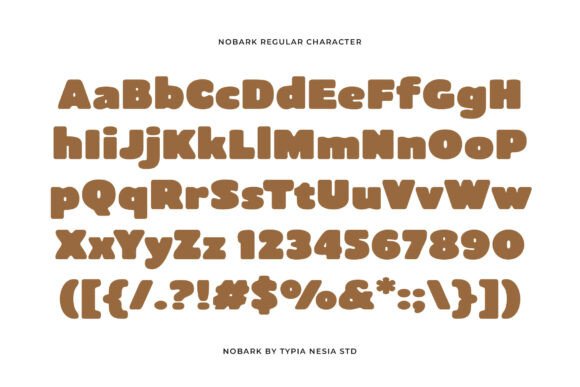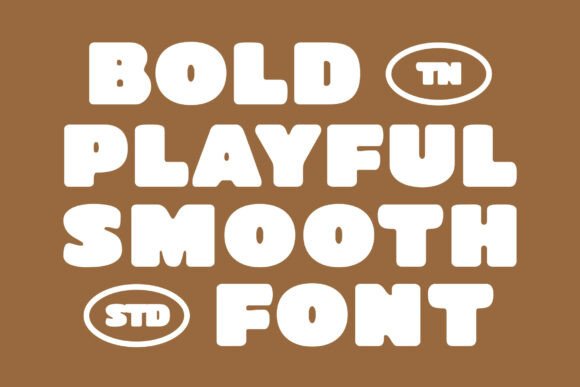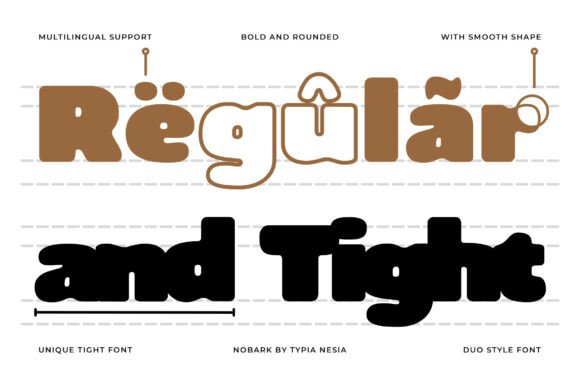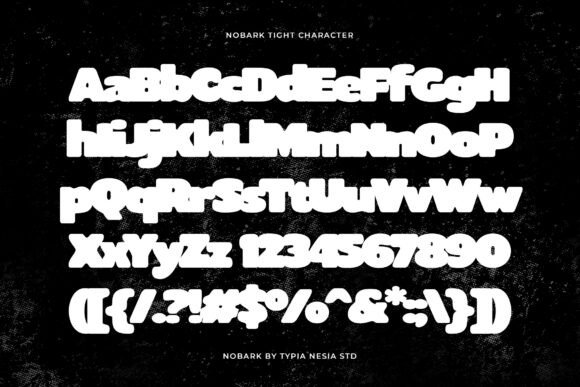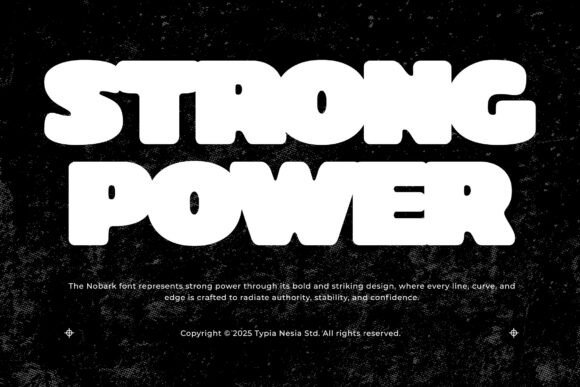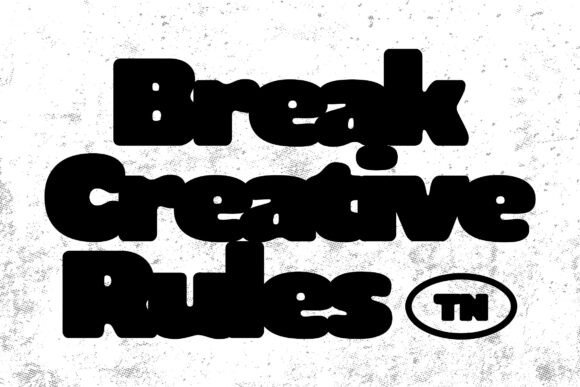
Introduction to Nobark Font
Remember that moment when you stumbled upon the perfect design resource that took your creative project to the next level? For designers, finding a high-quality font that perfectly captures the essence of our vision can be a game-changer. That’s exactly what we’re excited to introduce – the Nobark Font, a modern rounded bold chunky logo sans font designed to bring fun and approachability to your projects.
Nobark Font is more than just a design tool – it’s a way to inject clarity, strength, and irresistible modern charm into your work. With its smooth, rounded edges and bold, chunky feel, this font is perfect for creating high-impact headlines and memorable logo designs. Whether you’re working on branding, packaging, or any other creative project, Nobark Font is a valuable asset that will help you deliver your message with confidence.
Honest Review: Nobark Font
As a designer, I’m always on the lookout for high-quality design resources to elevate my creative projects. Recently, I had the chance to try out the Nobark Font, and I’m excited to share my thoughts with you.
Here are some of the things that work well with the Nobark Font:
- ✨ High-quality design: The Nobark Font is well-designed, with a clean and modern aesthetic that’s perfect for a variety of creative projects.
However, I did encounter a few limitations with the Nobark Font:
- ⚠️ Limited character set: The font only includes a limited character set, which may not be suitable for designers who need to work with non-English text.
- ⚠️ No bold or italic options: The font only comes in regular weight, which may not be enough for designers who need to add emphasis or contrast to their text.
Overall, I’m impressed with the Nobark Font, and I think it’s a great addition to any designer’s toolkit. While it may have some limitations, the high-quality design and free download make it a great option for designers who are looking for a reliable and versatile font.
Tips for Getting the Most Out of Nobark Font
To get the most out of the Nobark Font, use it on a transparent background to create a clean and modern design. Experiment with different font sizes and styles to add visual interest to your project.
The Nobark Font is ideal for:
- Website headers and footers